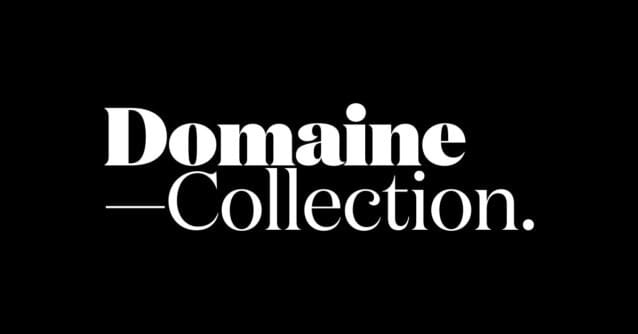
Domaine Collection Font Family
Domaine Collection Font Family, is a sharp, elegant serif that blends traditional French and British genres into a contemporary aesthetic. Its curvaceous Latin detailing centres upon gently bracketed triangular serifs, complemented by distinctive hooked terminals. Horizontal head serifs provide a calm, stable ground for the figurative detailing to shine. Domaine’s italics are inspired by Deberny & Peignot’s Labeurs Ordinaires Série, a subtle and assured complement to the romans.